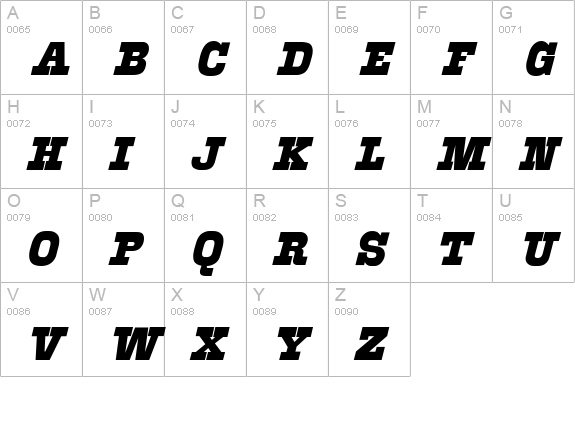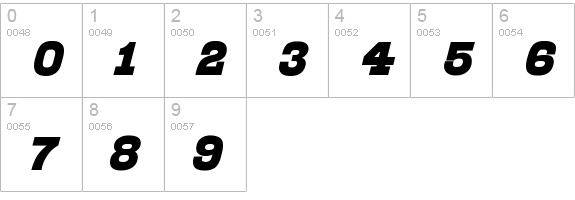
Akenaton Regular Font Details
Akenaton Regular is the standard, neutral variant in the Akenaton typeface family \xE2\x80\x94 well suited to general body text, paragraphs, and standard typographic work.
Akenaton Regular font is a sleek and modern typeface that exudes elegance and sophistication. With its clean lines and balanced proportions, this font is perfect for a wide range of design projects, from branding to editorial design. The versatile nature of Akenaton Regular makes it suitable for both headlines and body text, ensuring readability and visual impact. What sets Akenaton Regular apart is that it is available for free download at FontsMarket.com. This means that you can easily access and use this high-quality font in your projects without any cost. Whether you're a professional designer or a hobbyist looking to elevate your creations, Akenaton Regular is a valuable addition to your font library. So don't hesitate to explore the possibilities with this free font and take your designs to the next level.